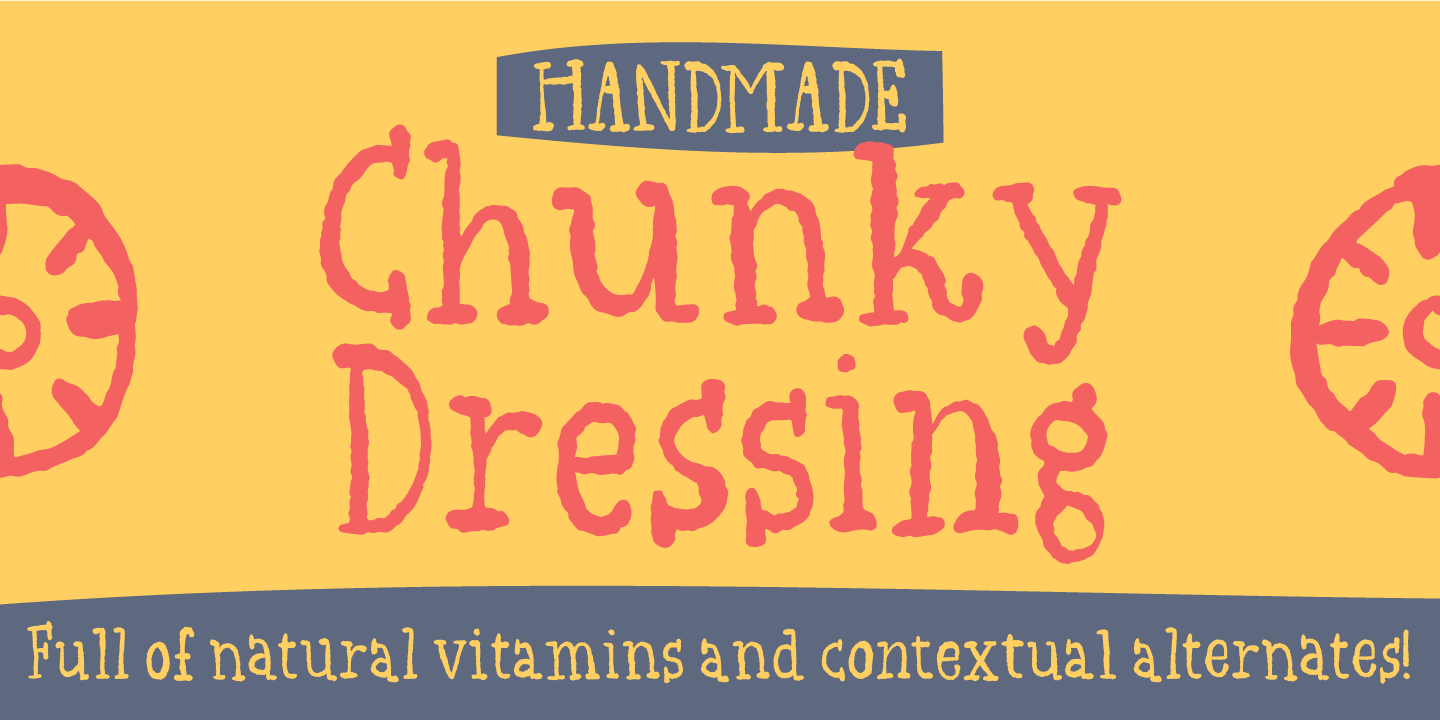
Looking for a bold, bubbly, and super fun typeface that instantly grabs attention? Chunky Dressing Font Free Download is ideal for children’s book covers, food packaging, playful branding, social media graphics, and anything that needs a dash of joyful personality. With its thick strokes and friendly curves, this font brings a sense of whimsy and warmth to every project.
Whether you're designing for a bakery, toy store, or a creative event flyer, Chunky Dressing Font Free Download will help your message pop with personality.